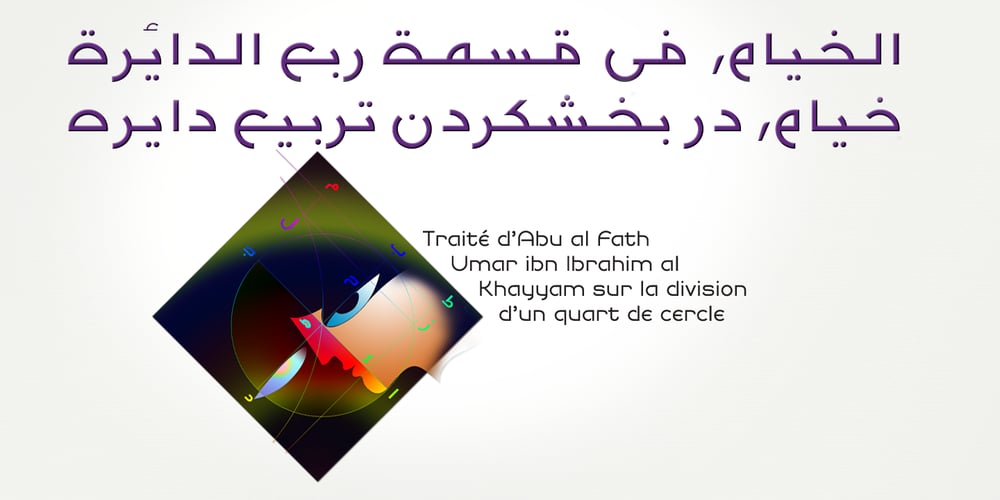
NaNa Arabic
NaNa Arabic font
NaNa Arabic Font Family was designed by Naghi Naghashian and published by Naghi Naghachian. NaNa Arabic contains 4 styles and family package options. NaNa Arabic is a new creation of Naghi Naghashian. It was developed in 2012/2013 on the basis of specific research and analysis of Arabic characters and definition of their structure. This innovation is a contribution to the modernisation of Arabic typography, giving the font design of Arabic letters real typographic arrangement and providing greater typographic flexibility. This step was necessary after more than two hundred years of relative stagnation in Arabic font design. NaNa Arabic supports Arabic, Persian and Urdu. It also includes proportional and tabular numerals for the supported languages. The NaNa Arabic Font Family is available in four weights: Thin, Light, Regular and Bold. The design of this font family is inspired by two classic scripts: Kufic and Naskh. The quasi-geometric character of Kofic melds with the calligraphic grace of Naskh, which was invented by Iben Moghleh, an Iranian savant of the ninth century. He lived in Baghdad and was assassinated at the instigation of an Abbasid caliph. He was a polymath and a renowned scholar. I dedicate the design of this font family to the memory of this great man.